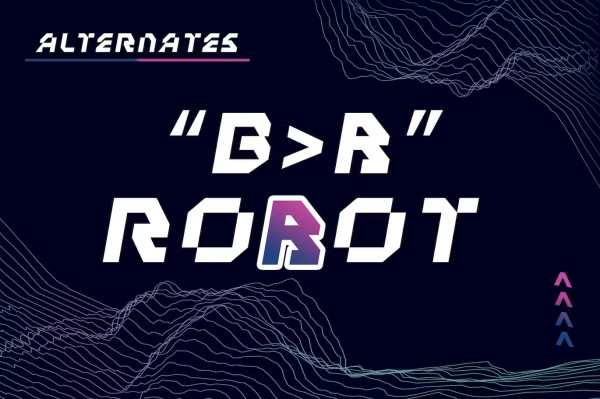
Desgard Display Font
Desgard Display Font is a modern mecha robot display font. Offers all the basic mecha robot styles you’ll need to make your project a success.